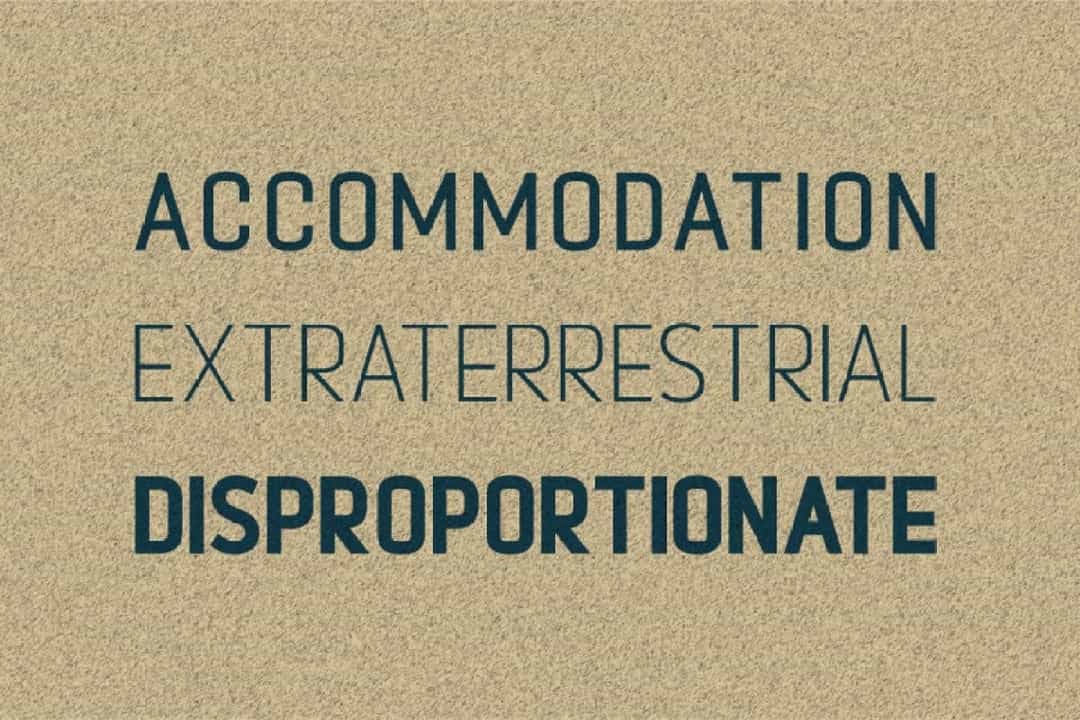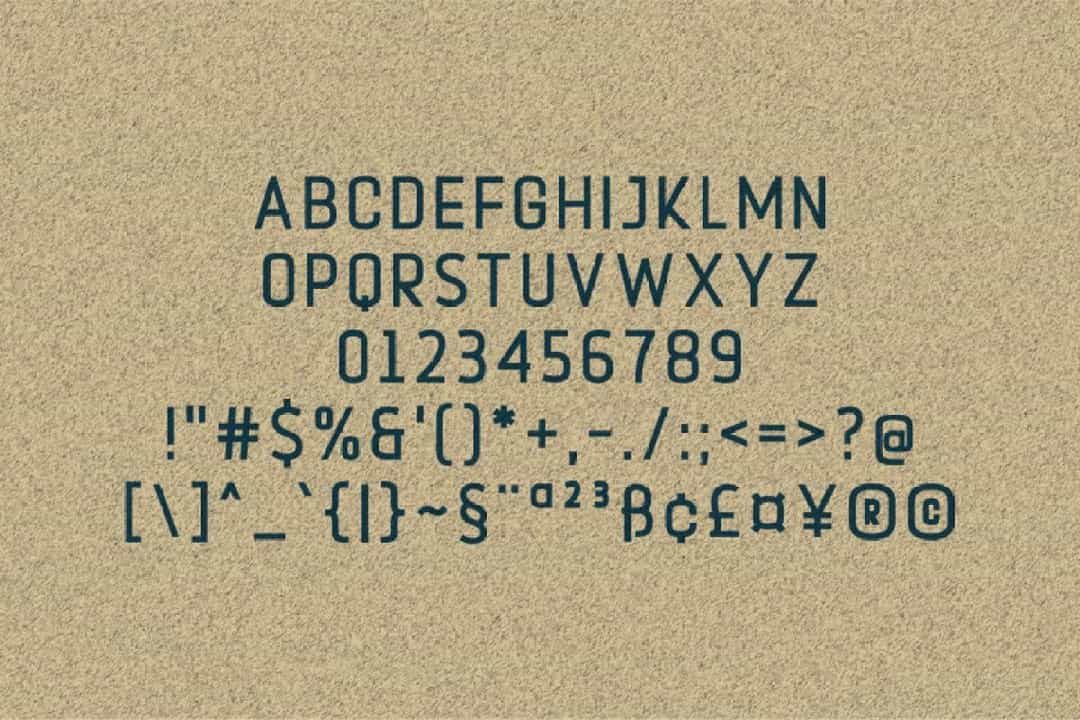
Escopediais an elegant and charming sans serif font designed by Nan Design. Offering five weights – Thin Regular, Light Regular Bold and Black – Escopedia allows designers to adapt designs easily for various environments; be it stunning images or book covers.